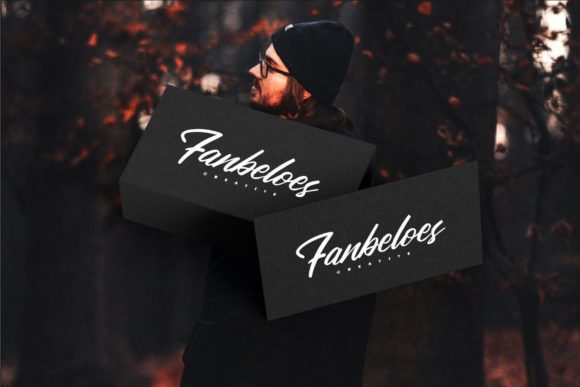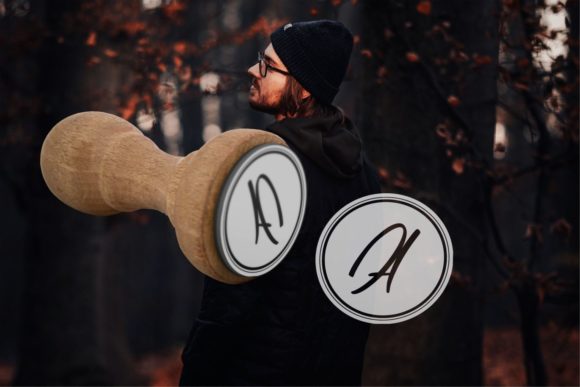
Dalattiona Font
db-ku.com - Script & Handwritten -- Dalattiona is a dazzling script font. Whatever the topic, this font will be a wonderful asset to your font library, as it has the potential to enhance any creation.